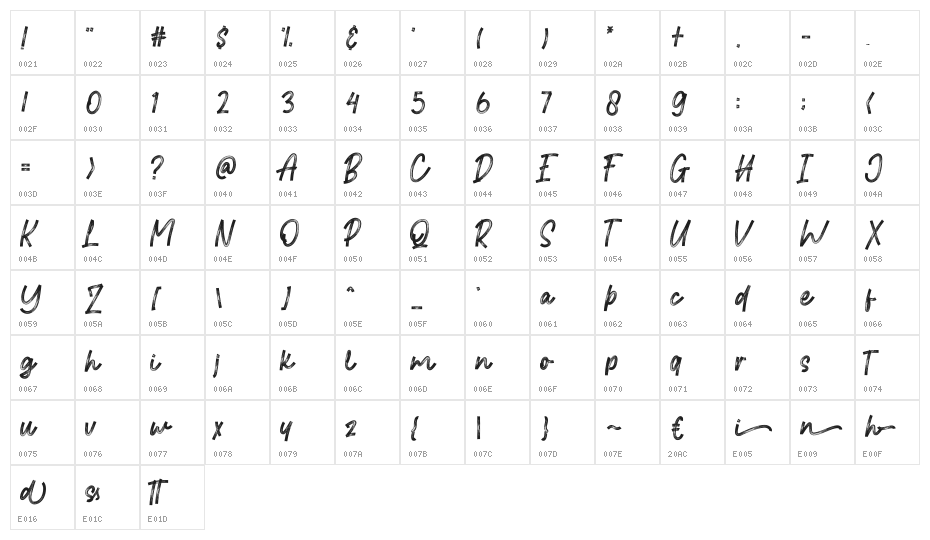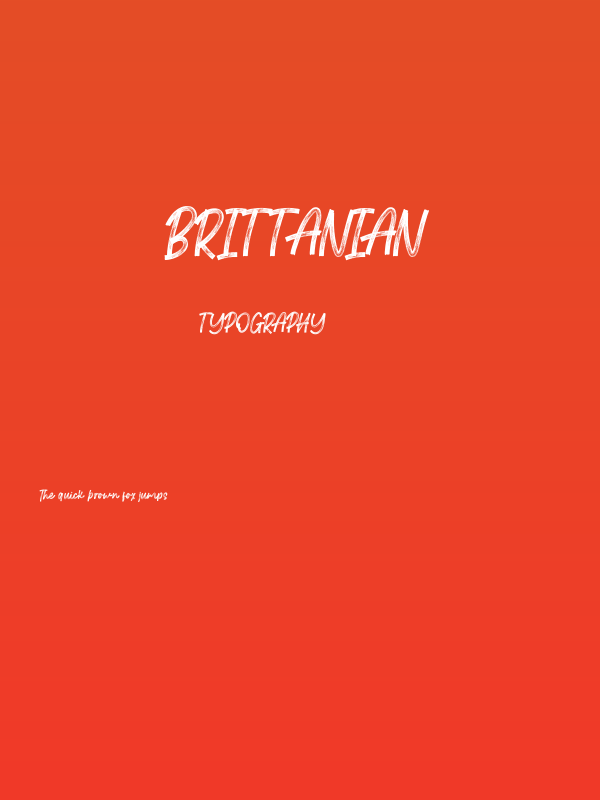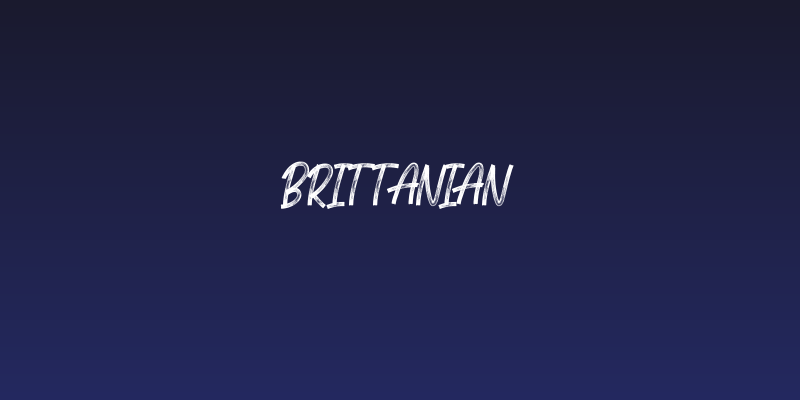
Brittanian Font
Brittanian Description
This font features a dynamic and energetic handwritten style, characterized by bold, sweeping strokes that convey a sense of movement and flair. The letters are slightly slanted, adding to the casual and informal feel. The uppercase and lowercase letters maintain a consistent style, with a playful yet sophisticated appearance. The numbers and special characters are designed to match the overall aesthetic, ensuring a cohesive look across all text elements. The brush-like texture of the strokes gives the font a textured, artistic quality, making it suitable for creative and expressive projects.
| Proposed Projects | Ideal for branding, posters, invitations, and any project requiring a personal, artistic touch. |